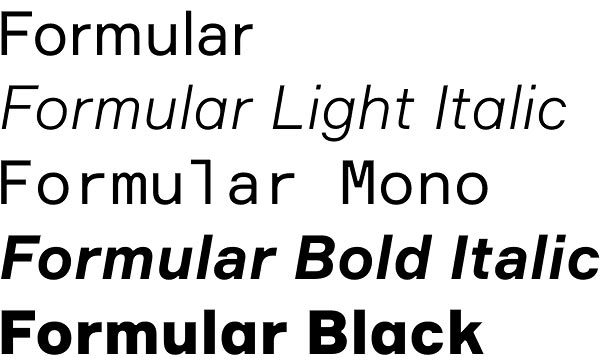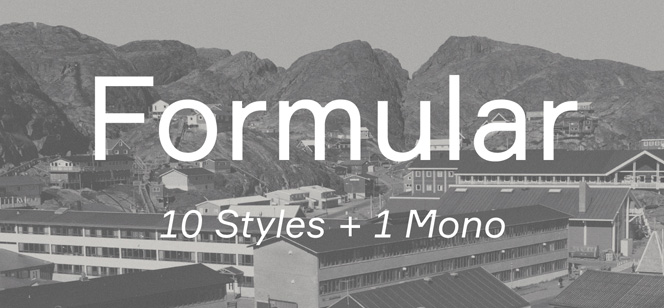
Formular font
Formular font by Vyacheslav Kirilenko and Gayaneh Bagdasaryan (Brownfox type foundry) is a Swiss Sans-Serif typography devoted follower in Grotesque precision and clean geometry but, however, does not hesitate to show its own personality and presence, escaping from the Modernist dogma. Formular font family has many possible applications due its versatility and good readability – from headlines to massive text.
Formular typeface family consists of 11 fonts in 5 weights plus their italics and a Monospace complement to the regular weight. Each weight includes special extra-light punctuation, lining tabular and old style figures, case-sensitive punctuation, and stylistic alternates. Some of the styles have Cyrillic language support.